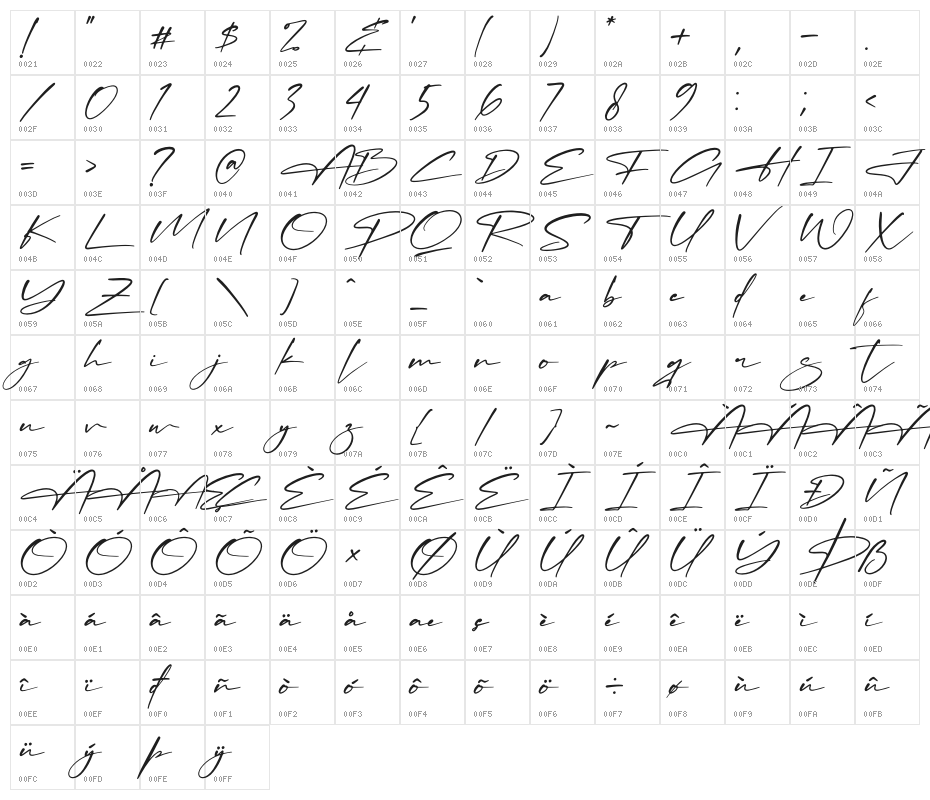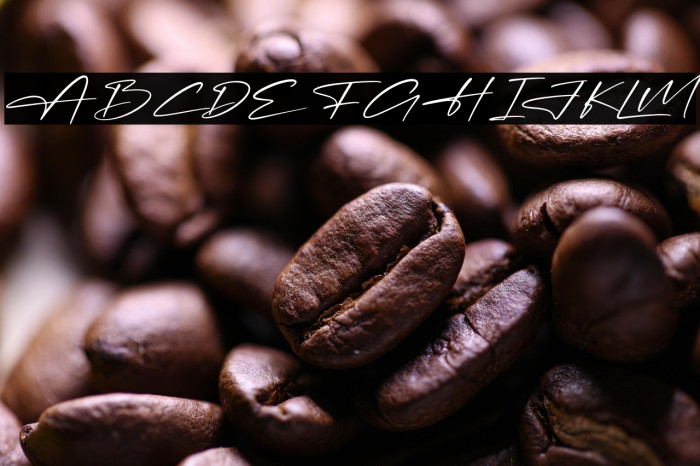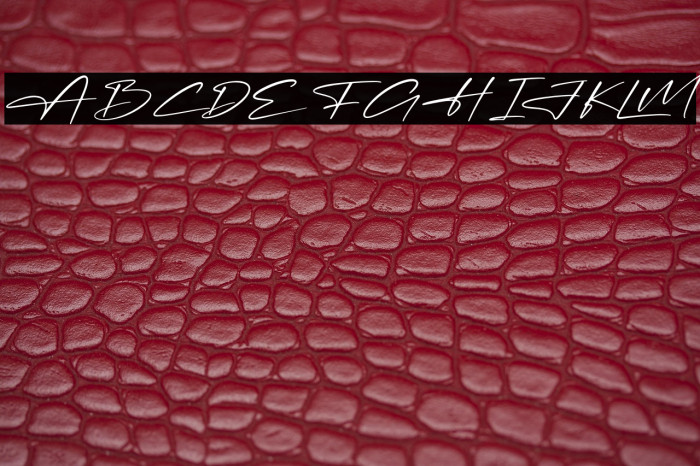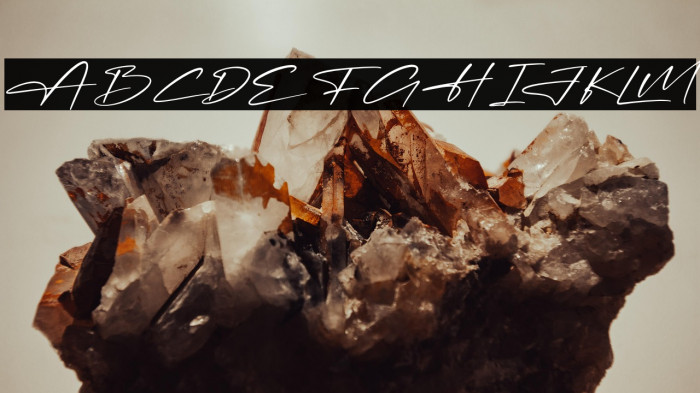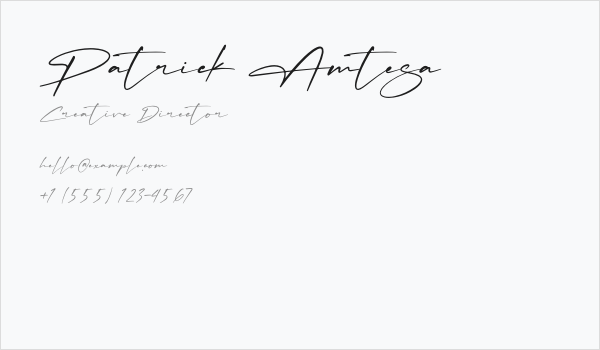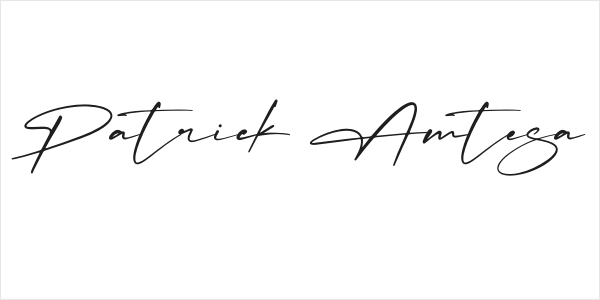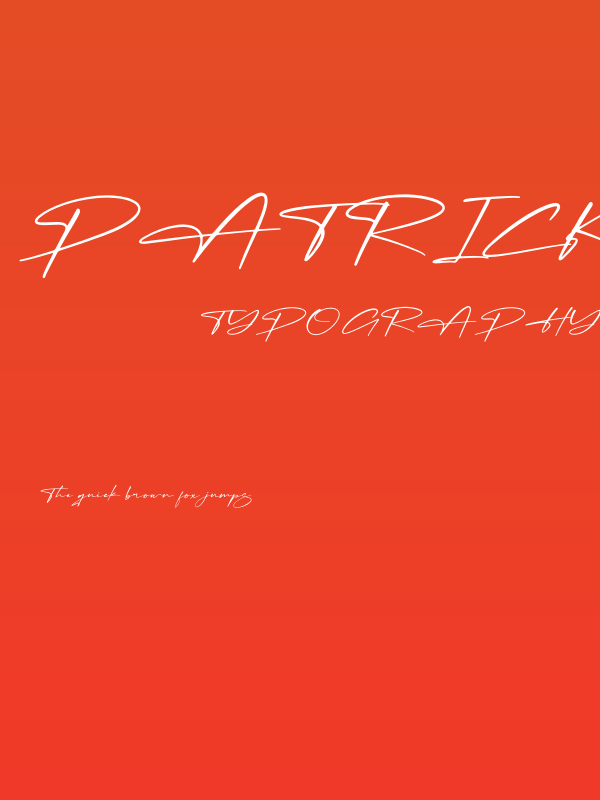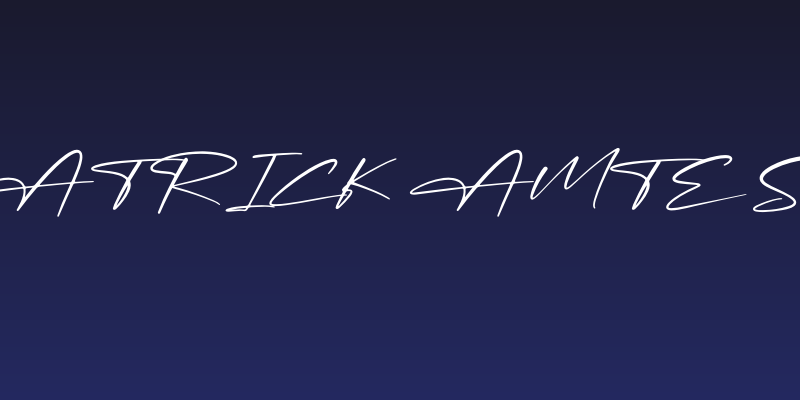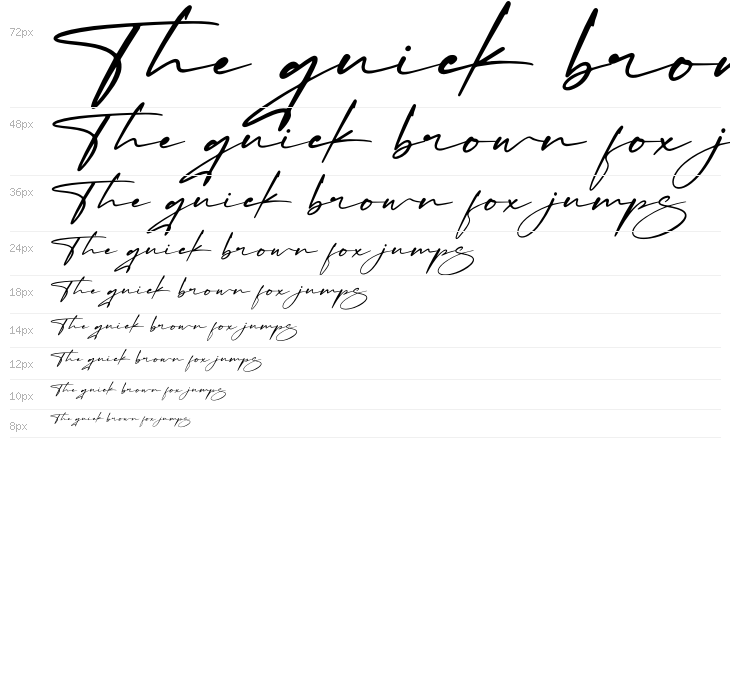
Patrick Amtesa Font
Patrick Amtesa Description
This font features a fluid, cursive style with elegant, sweeping strokes that mimic the natural flow of handwriting. The uppercase letters are slightly more structured, maintaining a consistent height, while the lowercase letters exhibit a more playful and dynamic form. The numerals and special characters are designed to complement the overall aesthetic, maintaining the same fluidity and grace. The strokes are thin, with a consistent width throughout, giving the font a delicate and sophisticated appearance. The character spacing is tight, enhancing the connected, handwritten feel. This font is ideal for projects that require a personal touch, such as invitations, greeting cards, or branding materials that aim to convey elegance and sophistication.
| Overall Style | Elegant, Handwritten |
| Proposed Projects | Ideal for wedding invitations, personal branding, greeting cards, and elegant stationery. |